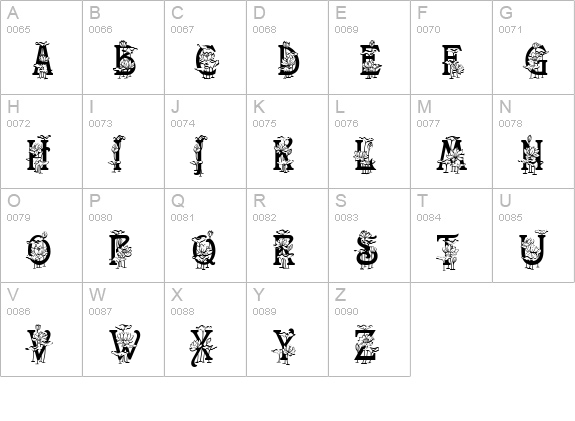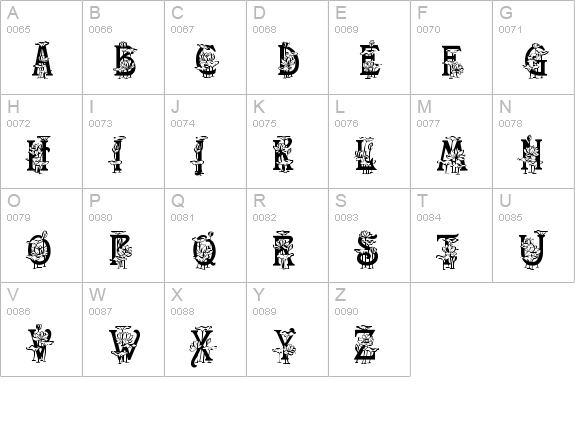
CgLotus Font Details
CgLotus font is a stunning display typeface that exudes elegance and sophistication. With its delicate and intricate design, this font is perfect for adding a touch of luxury to any project. The intricate details and graceful curves of CgLotus make it a standout choice for branding, packaging, invitations, and more. What sets CgLotus font apart is not only its beauty but also its versatility. Whether you're working on a wedding invitation, a high-end fashion magazine, or a luxury brand logo, this font will elevate your design to the next level. And the best part? CgLotus font is completely free to download at FontsMarket.com. You can bring the beauty and sophistication of this font to your projects without breaking the bank. So why wait? Download CgLotus font today and let your creativity flourish!